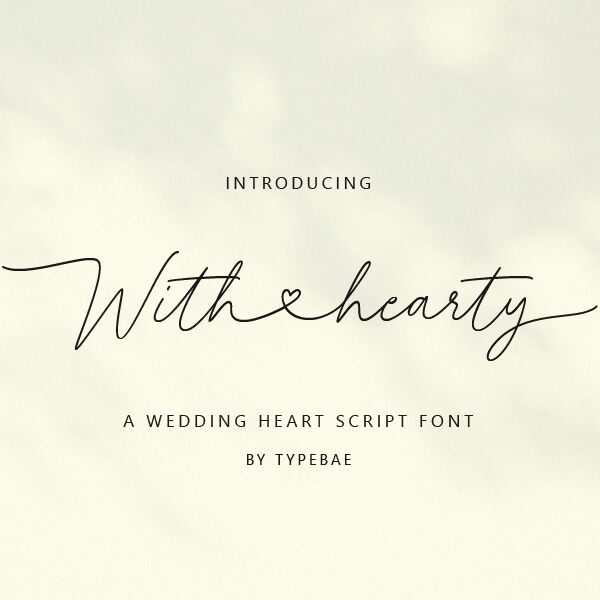
With Hearty font, crafted by Typebae Foundry, radiates an inviting charm with its elegant handwritten style. This font boasts a delightful lightness, giving it an airy feel that captures attention without overwhelming. Each stroke flows seamlessly, embodying the essence of a personal signature-invoking warmth and authenticity.
Visually stunning, With Hearty’s sweeping curves and delicate flourishes create a sense of grace that is both playful and refined. Its versatility makes it ideal for a variety of design contexts: from wedding invitations to heartfelt greeting cards, and even stylish branding endeavors. Embrace this font for projects that seek to convey intimacy and genuine emotion while ensuring standout appeal in any setting.
With Hearty